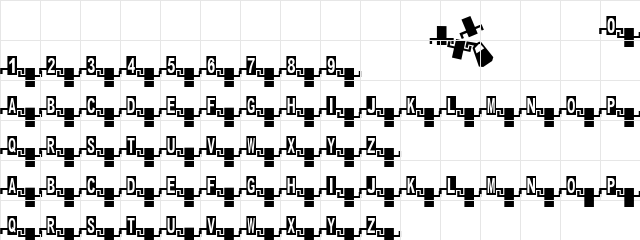
Rajdhani Express Regular
Design Context for Rajdhani Express Typeface
Rajdhani Express is a composed and adaptable typeface that performs quietly and consistently across a wide range of design contexts.